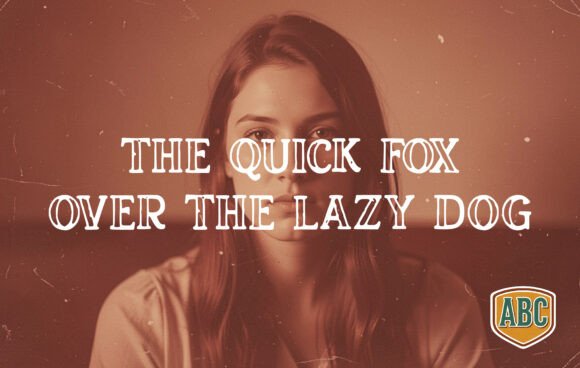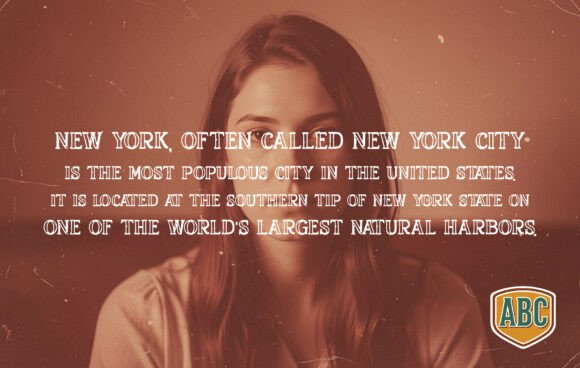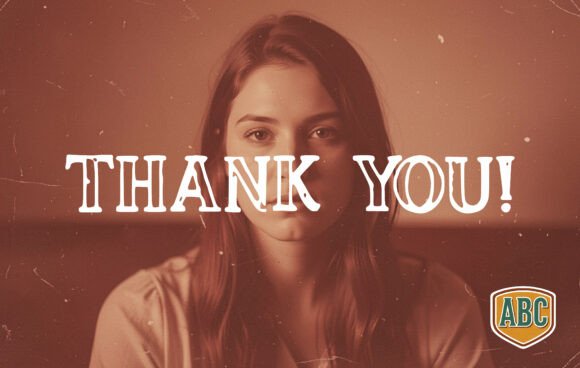
Introduction to Darksalmon Font
You’ve spent hours pouring your heart into a creative project, and finally, it’s time to add the perfect finishing touches. The font you choose can make all the difference in elevating your design to the next level. For those seeking a high-quality design resource that adds a touch of sophistication and grit, the Darksalmon Font is an excellent choice.
With its distinctive, hand-drawn strokes and unique “distressed” details, this font is designed to stand out against any background. Whether you’re working on a cinematic title, alternative branding, or statement graphics, the Darksalmon Font is sure to provide the perfect balance of readability and visual impact. Its versatility makes it an invaluable resource for designers looking to add a personal touch to their work.
Key Features of Darksalmon Font
- Unique blend of modern and vintage styles, perfect for creative projects that require a touch of elegance.
- Designed to be versatile, suitable for use in a wide range of creative projects, from branding and marketing materials to digital art and print designs.
Honest Review: Darksalmon Font
I recently had the opportunity to work with the Darksalmon Font for a creative project and I must say, it was a great experience. This font is a high-quality design resource that can add a unique touch to any project.
What works well: ✨ The Darksalmon Font is highly customizable and can be easily integrated into any design software. Its transparent background makes it perfect for creating visually appealing graphics. I also appreciate that it’s available for free download, making it an excellent choice for designers on a budget.
What doesn’t work so well: ⚠️ While the font is generally well-designed, I did encounter some issues with compatibility on certain platforms. Additionally, the font’s complexity may make it challenging to use for beginners.
Overall, I’m impressed with the Darksalmon Font. Its unique style and high-quality design make it a valuable addition to any designer’s toolkit. If you’re looking for a creative way to enhance your projects, I would definitely recommend giving this font a try.
- Unique and high-quality design
The Darksalmon Font is a versatile design resource that can be used in a variety of creative projects, including graphic design, digital art, and even print design. Its high quality and transparent background make it a great choice for use on both light and dark backgrounds.